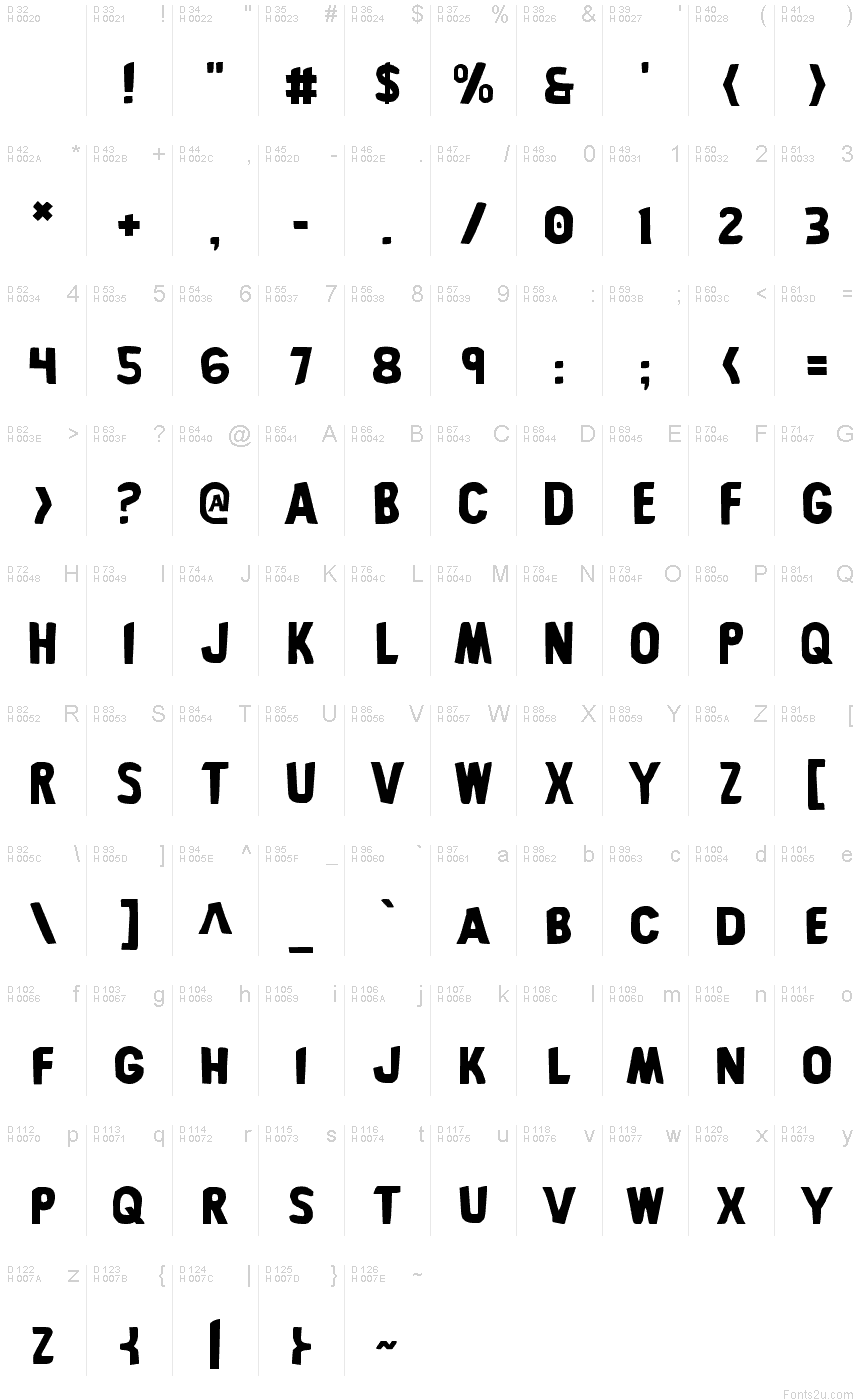
Bronic
Bronic font by Iconian Fonts is a free comic display font with big, ink-heavy shapes and soft, rounded corners that feel like a bold title stamped straight onto a panel. Its chunky rhythm and snug spacing give words instant punch, like a superhero sound effect without the jagged edges. When you need playful impact that still reads fast, Bronic delivers.
Using Bronic on comic covers, superhero logos, kids’ event posters, toy packaging, sticker sets, game title screens, and YouTube thumbnails keeps the mood loud and friendly. Set it large and let it breathe, then pair this free font with a clean geometric sans for any supporting text so the headline stays the star.